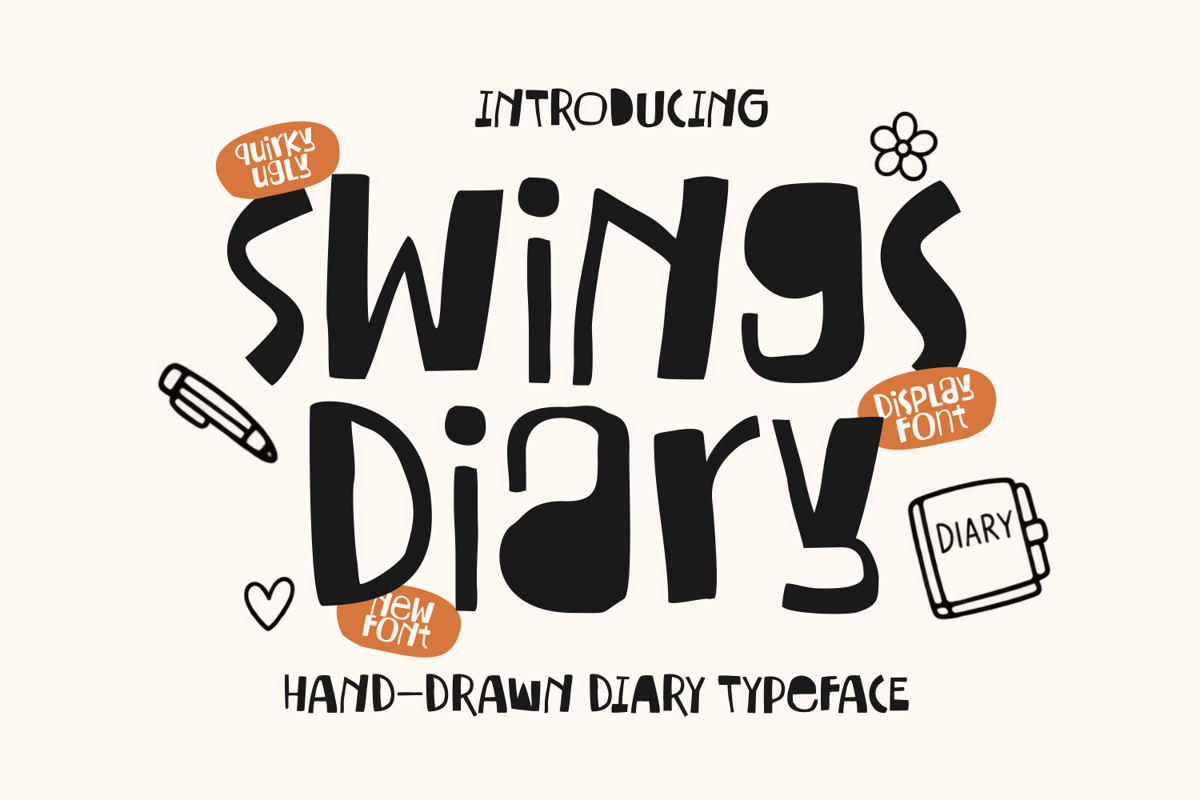
Swings Diary - Handwritten Playful Font
Swings Diary is a quirky, hand-drawn typeface that captures the essence of personal journals and playful doodles. Its chunky, irregular strokes offer an authentic "ugly-cool" aesthetic, ideal for children's books, greeting cards, and social media content. This font brings a joyful and handmade touch to any creative work.
### Main Features:
- Unique hand-drawn aesthetic
- Bold and chunky strokes
- Fun doodle-style characters
- Multilingual glyphs
- Versatile for print and digital